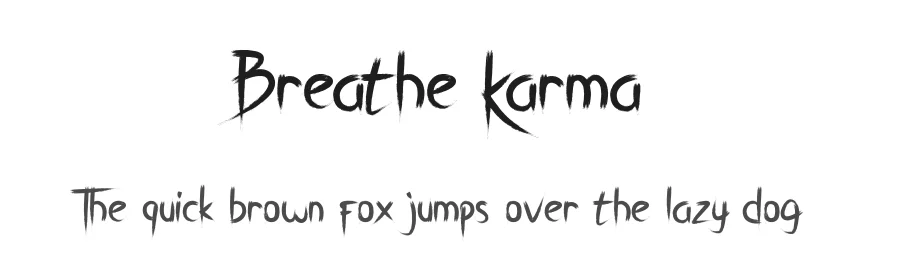
About Perls Font
Perls is a script & handwritten font designed by Afif Mrfive. It includes 141 glyphs, a medium weight, TTF (TrueType) format, and 121 languages. Perls is free to download; check the license details on this page before commercial use. Script & handwritten fonts like Perls work best for wedding invitations, greeting cards, signatures, and elegant branding.
Perls Font is a script font that shines as a display or heading face. Pair it with a clean sans-serif or serif font for body text β the contrast creates a clear hierarchy while the two styles stay balanced and easy to read.
Perls Font
by Afif Mrfive